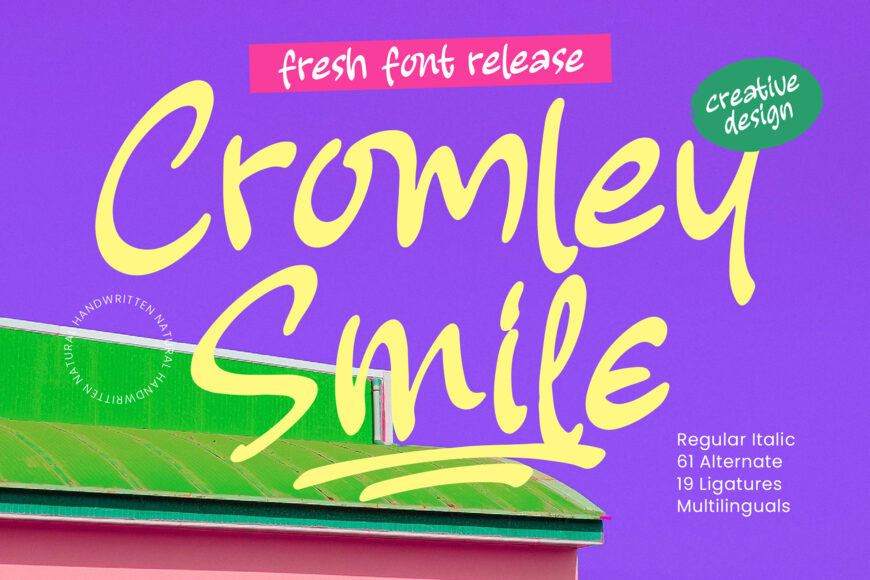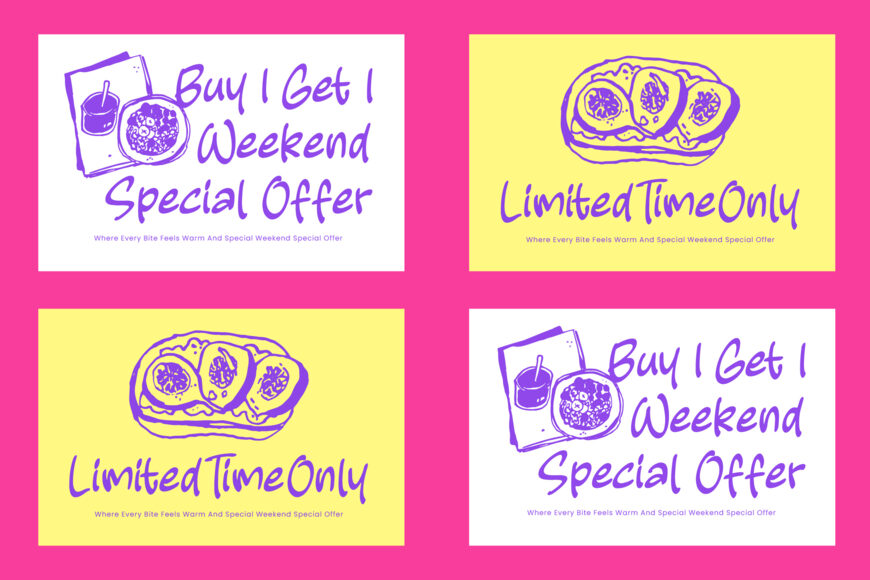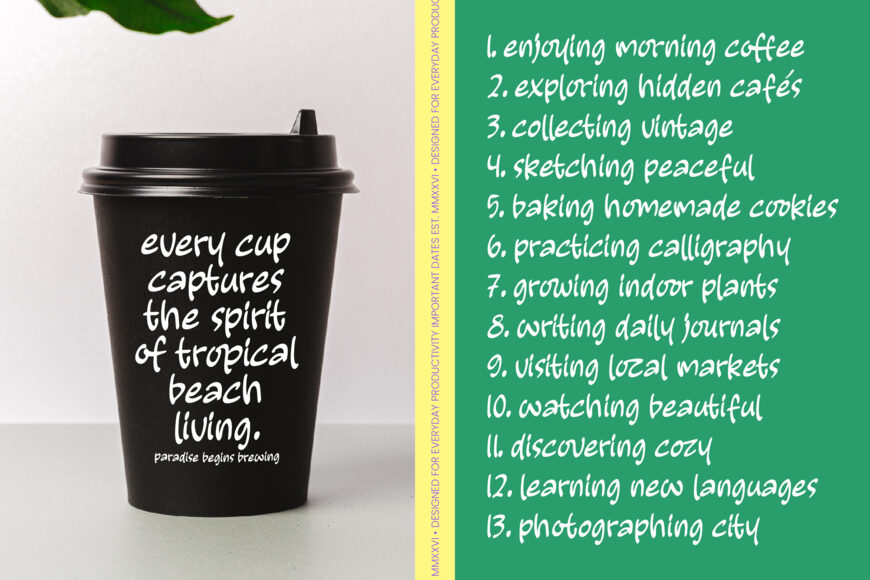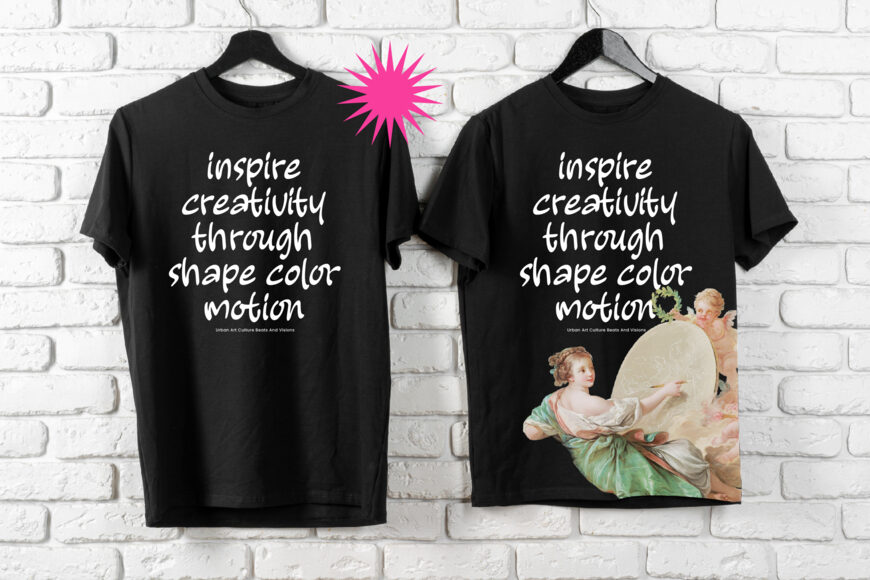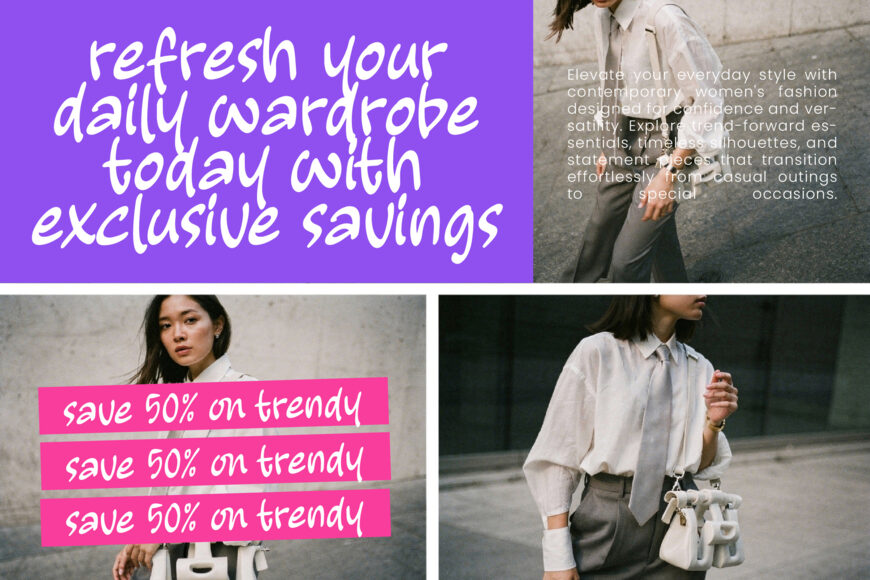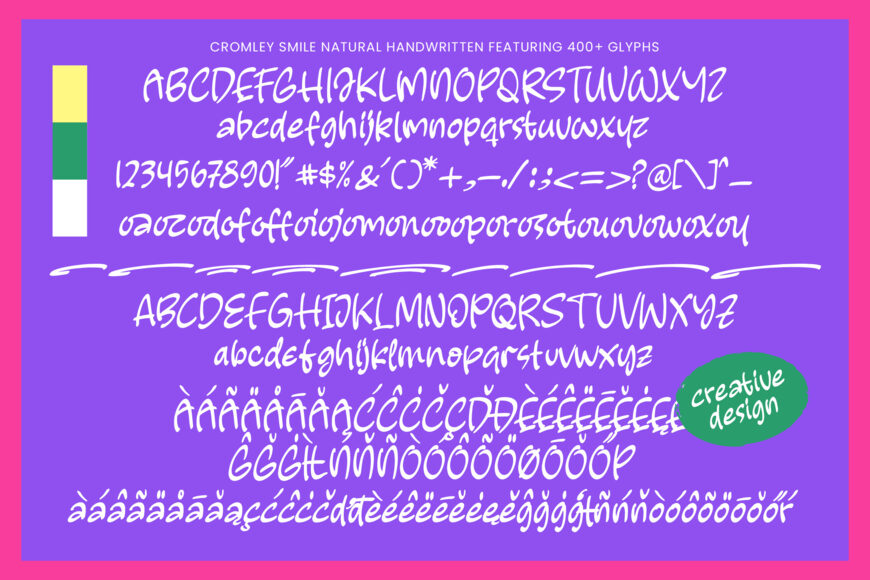
Cromley Smile is a handwritten font that combines organic charm with professional craftsmanship. Its fluid strokes and rhythmic flow bring a human touch to digital designs.
With multilingual support and customizable features, it’s perfect for global projects. Cromley Smile suits luxury branding, packaging, and editorial design, offering a sophisticated yet approachable feel for high-end projects, social media, and lifestyle blogs.